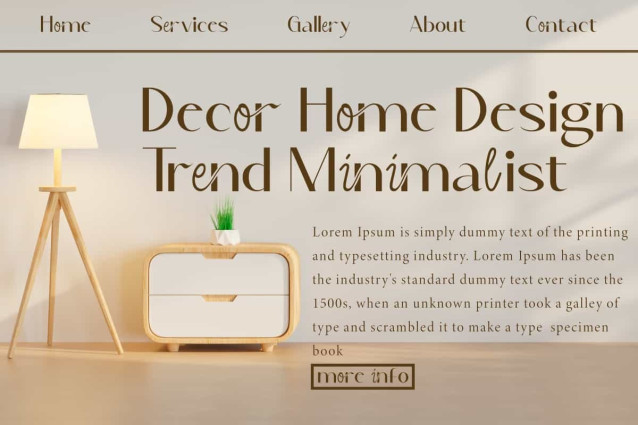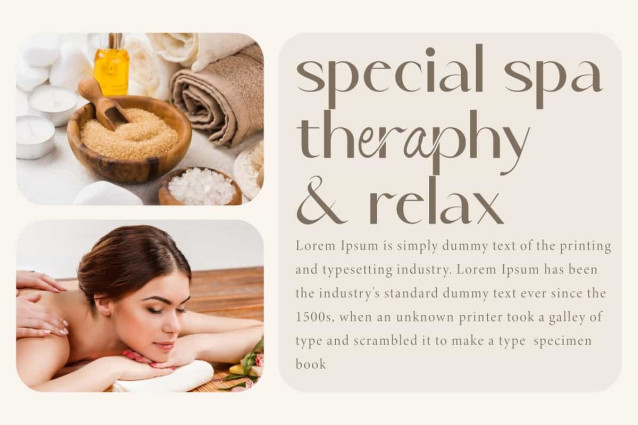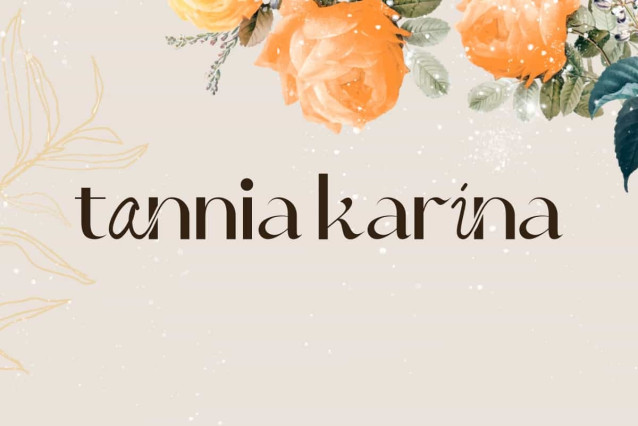
Tannia Karina Font
Tannia Karina Font is a casual stylish sans serif display font with a unique modern touch. The letters have curved elements and fine details that create an elegant and artistic look. This font is suitable for brand image, brochure, cover, greeting card, header, label, lettering, logotype, magazine, mockup template, packaging, pamphlet, poster, quotes, t-shirt, website, and more!
Tannia Karina Font includes full set for Uppercase and Lowercase Basic Characters, Numbers, Punctuation and Symbol. This font contain Ligature and Alternate characters that will be suitable for beauty product, advertisement, bakery, fashion, crafts, event or wedding organizer, photography, restaurant, spa, travel agency, etc.